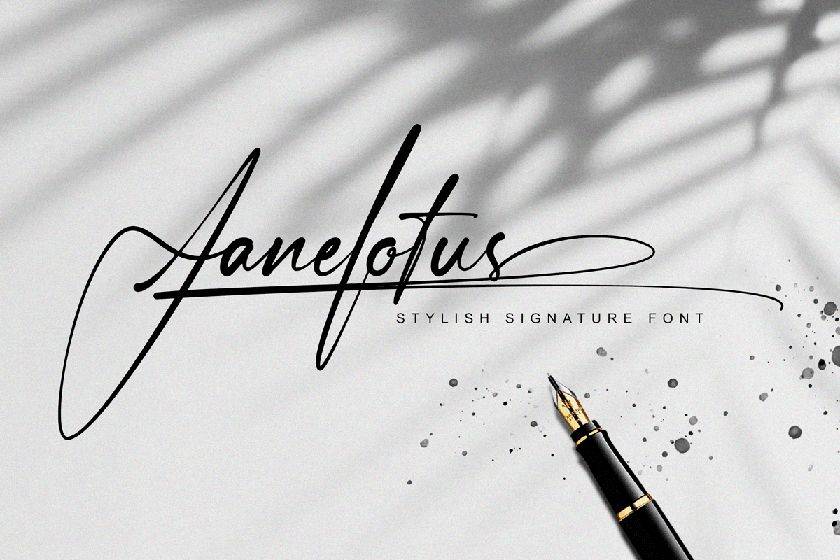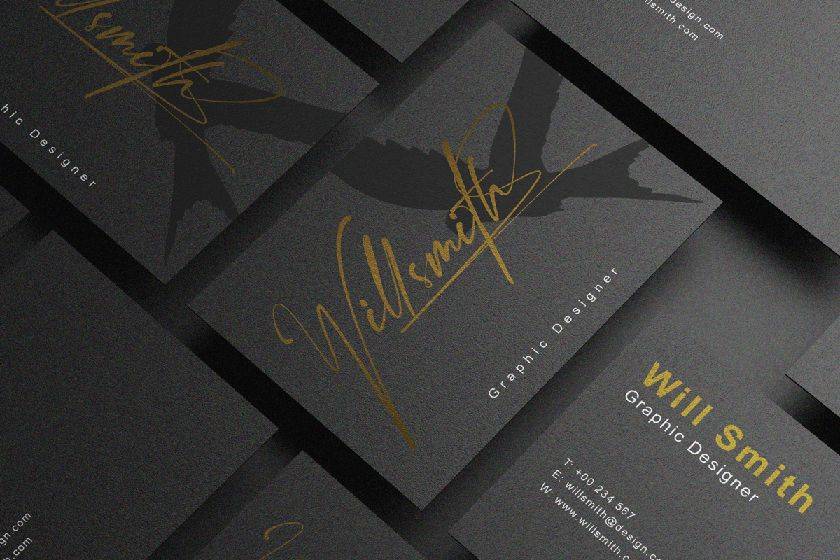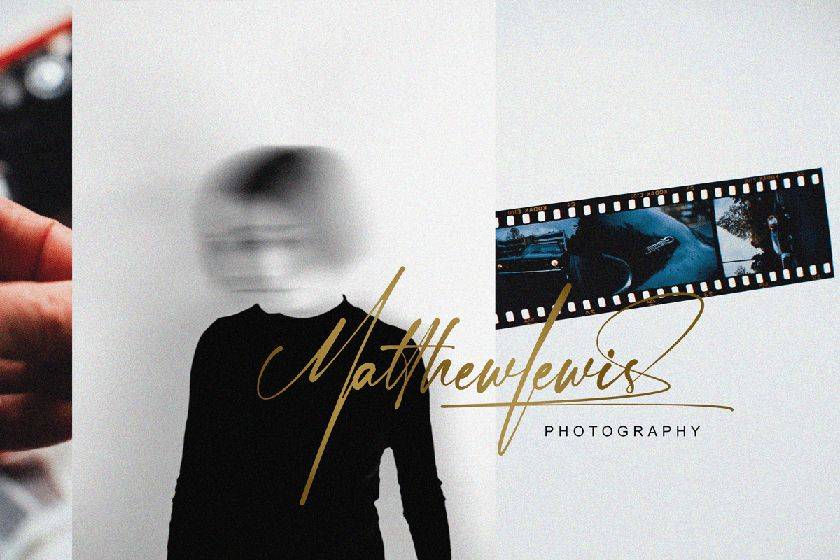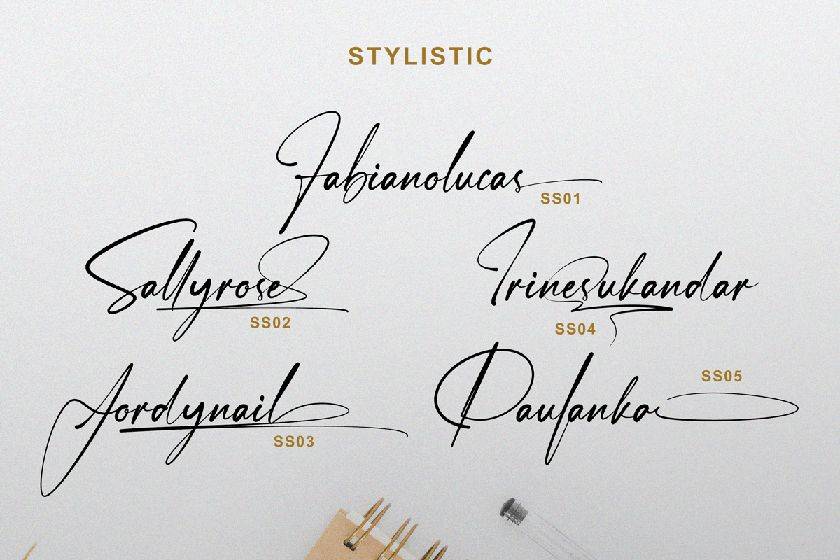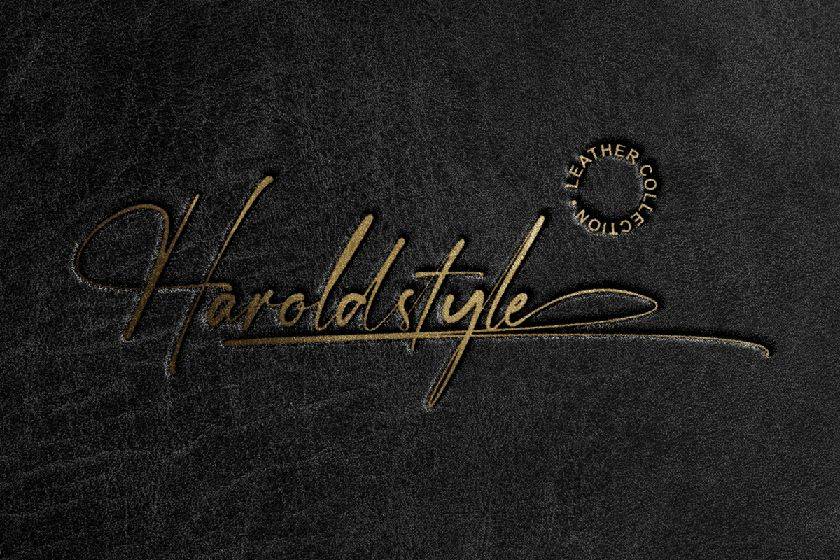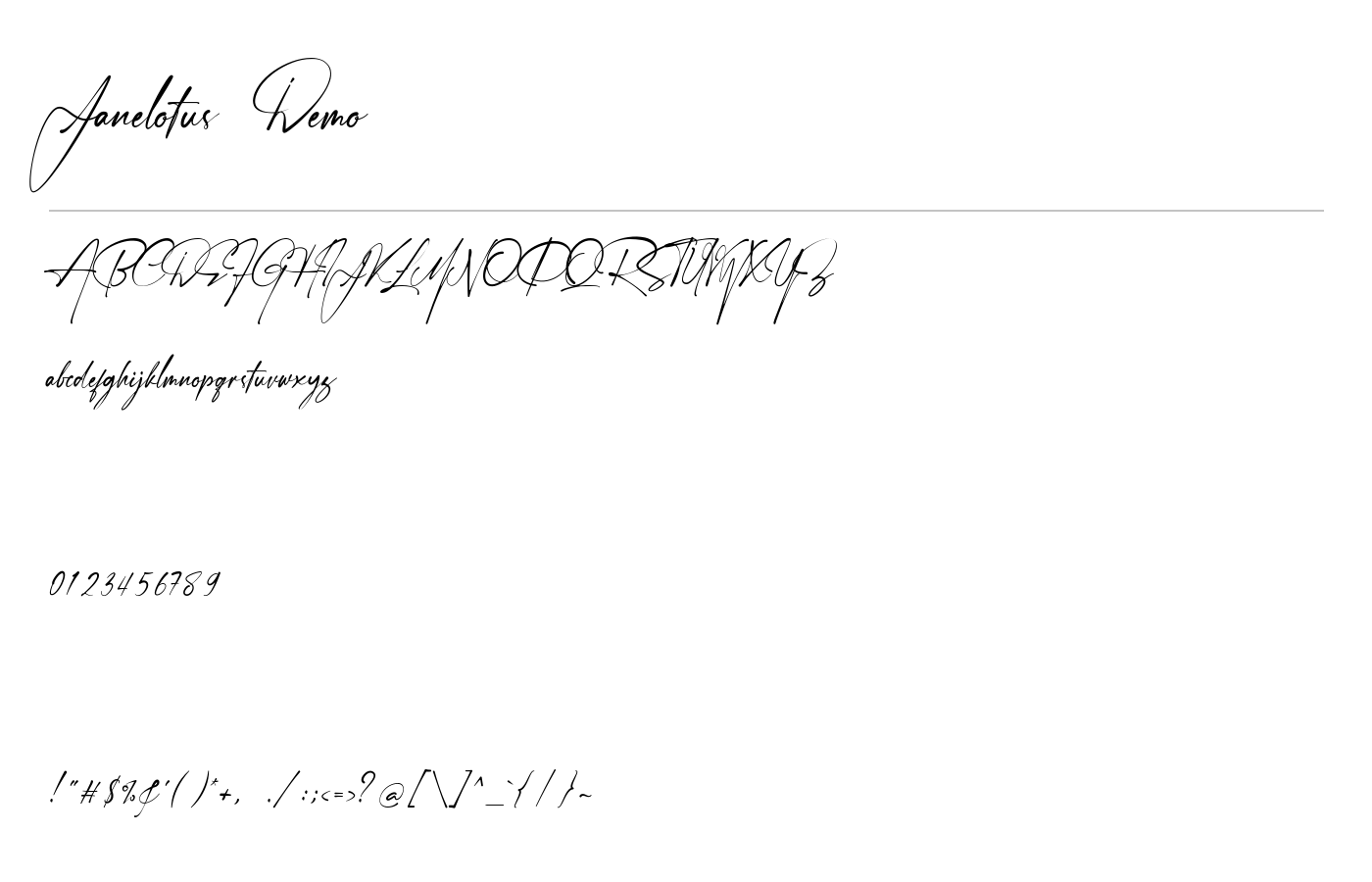
Janelotus is an elegant, thin script font with a delicate, handwritten feel characterized by its tall, flowing letterforms and fine stroke contrast. Its graceful curves and slightly erratic line quality convey a personal and artistic touch, making it ideal for sophisticated branding, wedding invitations, and stylish editorial accents. This font works best in large sizes where its intricate details can shine, adding a sense of luxury and refinement to any design.
Janelotus Font